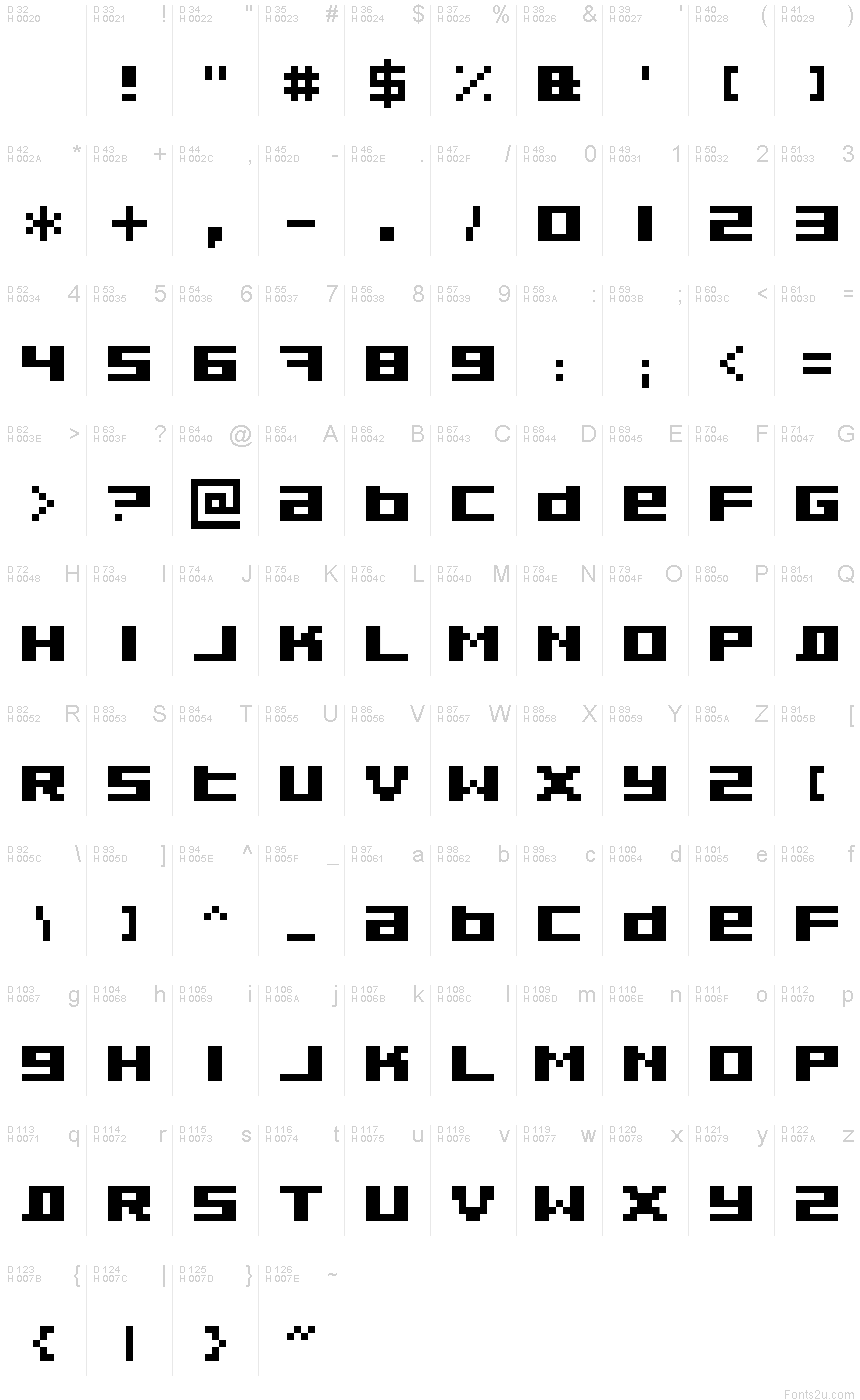
Pixeldust Expanded Bold
Pixeldust Expanded Bold by Andreas Nylin is a free bitmap font with a chunky arcade-era attitude. The letters are built from hard square steps and broad blocky shapes, giving the font a dusty low-resolution rhythm that feels closer to old game screens and early computer graphics than to smooth modern display lettering.
It fits naturally in retro game branding, poster headlines, zine covers, title cards, and short logo work where that coarse digital texture does the talking. As a free font, it also suits badges, stream graphics, and compact monograms, especially when you want the caps to feel blunt, playful, and deliberately screen-born.